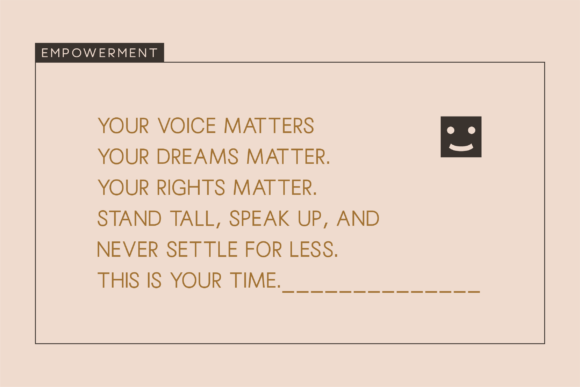
Mydrone Font: Elevate Your Design with a Modern Sans Serif Typeface
In the world of design, typography plays a crucial role in conveying messages, expressing ideas, and creating a lasting impression. For modern designers, having access to a versatile and impactful font is essential for creating stunning visual content. Introducing Mydrone, a bold, all-caps sans serif font designed to make a statement. With its clean lines, minimalist aesthetic, and strong geometric structure, Mydrone is perfect for projects that require professionalism, impact, and clarity.
The Mydrone Difference: A Modern Sans Serif Typeface
Mydrone is a modern sans serif typeface that exudes strength and authority. Its bold, all-caps design ensures maximum impact, making it ideal for headlines, posters, and anywhere you need your message to stand out. The font’s clean lines and minimalist aesthetic give it a confident and professional look, perfect for branding, logos, packaging, and digital design.
One of the key features of Mydrone is its versatility. The font’s strong, geometric structure ensures that it can be used across various platforms, from digital interfaces to high-end branding. Whether you’re designing a logo, website, or print material, Mydrone makes a statement with its sharp, crisp edges.
Key Features of Mydrone Font
- All-caps design for maximum impact and clarity
- Modern, minimalist style with a focus on readability
- Bold, clean lines for a confident and professional look
- Ideal for branding, logos, packaging, and digital design
- Perfect for both large-scale headlines and smaller text blocks
Who is Mydrone Font Suitable For?
Mydrone is perfect for brands, agencies, and designers looking to create a modern, authoritative identity. The font is especially suitable for:
- Tech companies looking for a modern and sleek typography solution
- Corporate branding projects that require a professional and impactful font
- Luxury design projects where style and readability are paramount
Benefits of Using Mydrone Font
Using Mydrone font offers several benefits, including:
- Improved readability: Mydrone’s clean lines and minimalist aesthetic ensure that your message is conveyed clearly and effectively.
- Enhanced professionalism: The font’s bold, confident look gives your design a professional and authoritative feel.
- Increased versatility: Mydrone can be used across various platforms, from digital interfaces to high-end branding.
- Unique identity: Mydrone’s modern sans serif design helps you create a unique and distinctive identity for your brand.
How to Use Mydrone Font Effectively
To get the most out of Mydrone font, consider the following tips:
- Use it for headlines: Mydrone’s bold, all-caps design makes it perfect for headlines and titles.
- Pair it with other fonts: Mydrone can be paired with other fonts to create a unique and visually appealing typography solution.
- Experiment with colors: Mydrone’s clean lines and minimalist aesthetic make it suitable for use with a wide range of colors and design styles.
In conclusion, Mydrone font is a modern sans serif typeface that offers a unique combination of style, readability, and versatility. Its bold, all-caps design and clean lines make it perfect for projects that require professionalism, impact, and clarity. Whether you’re a designer, brand, or agency, Mydrone is an excellent choice for creating a modern, authoritative identity.